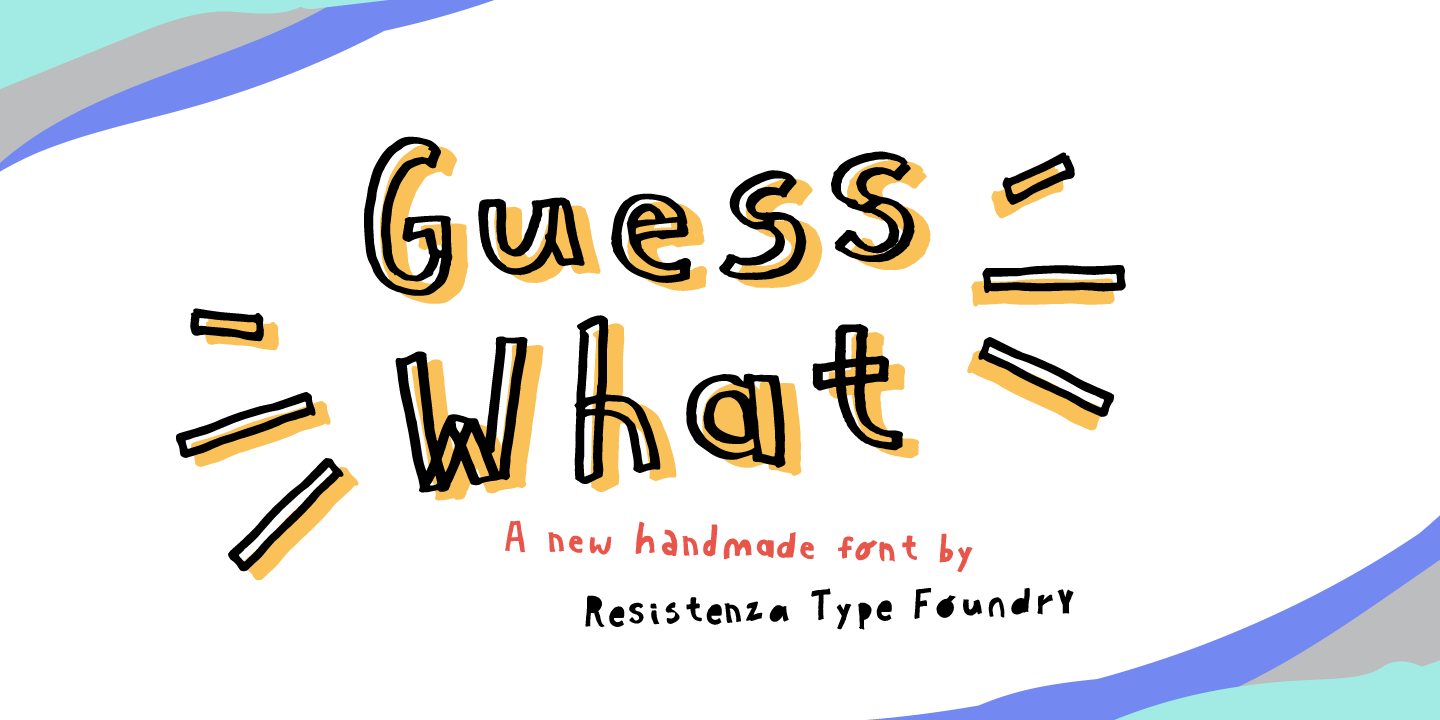
Guess What Font Free Download is a modern and playful display typeface designed to grab attention with its unique and quirky style. Please note: you must purchase a license for commercial use — this font is available as a free download strictly for personal and testing purposes.
Ideal for headlines, posters, branding, social media graphics, and packaging, Guess What Font Free Download brings a fun and engaging vibe to your creative projects.
What makes this font exciting is its bold character shapes and unexpected letterforms that add personality and a sense of curiosity to any design.
The Guess What font family includes Regular and Bold styles, offering flexibility for diverse typographic needs.
If you want to add a mysterious and energetic flair to your work, Guess What Font Free Download is a perfect choice. Download it today, explore its distinctive design, and elevate your projects with confidence and creativity.